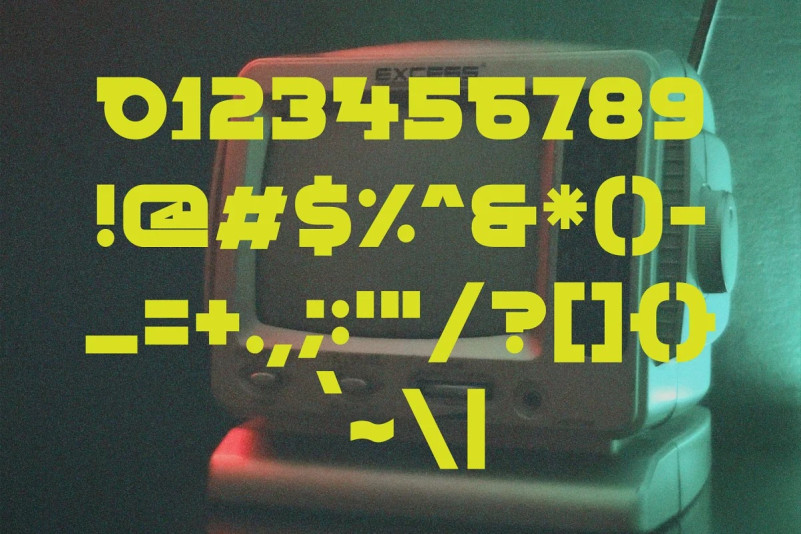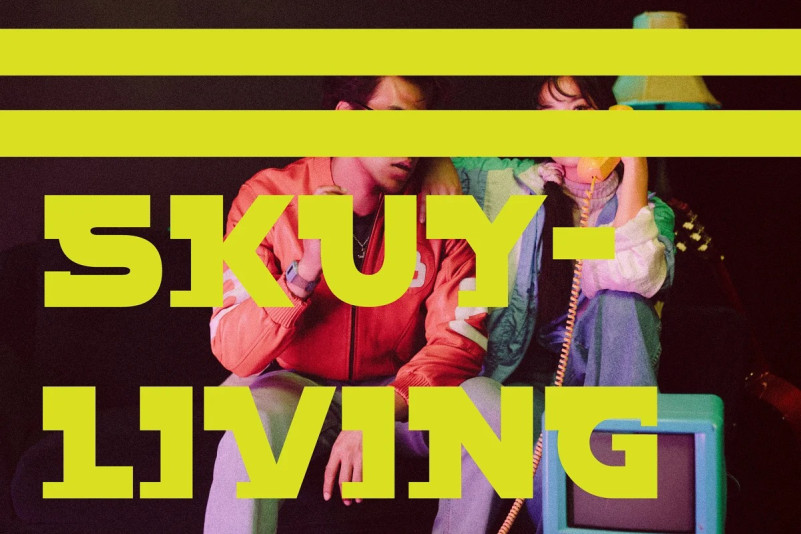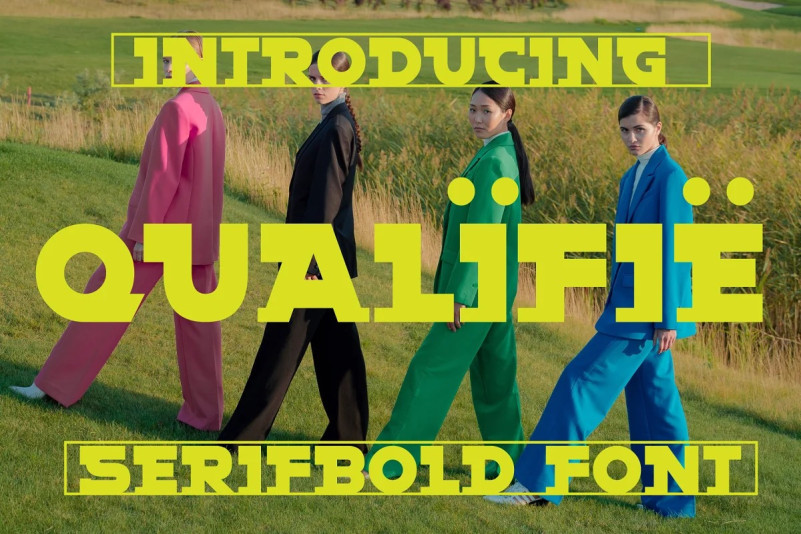
Qualifie Font
Qualifie Font, a unique and simple slab serif font. So perfect for you who needs a typeface for logo designs, magazine, social media, brochure, and many more.